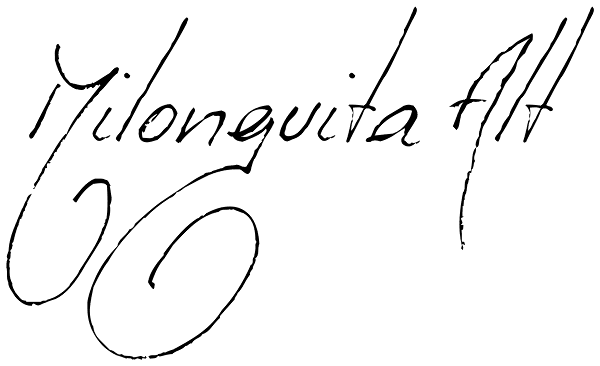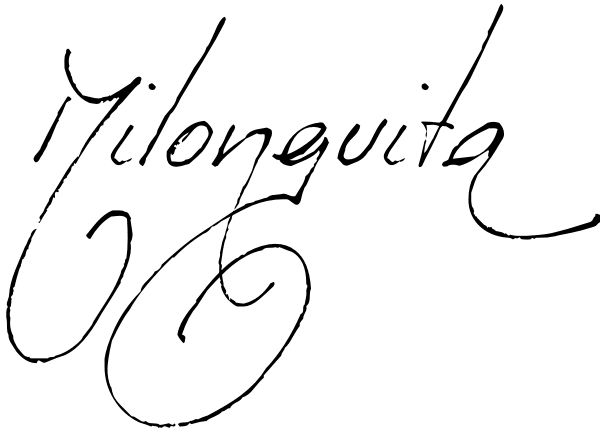
Milonguita Basic
Milonga is one of the most characteristic dances of Argentina and it is usually compared to Tango. However, couples perform shorter and more energetic movements when dancing to the beat of Milonga. In addition, while Tango evokes the idea of...